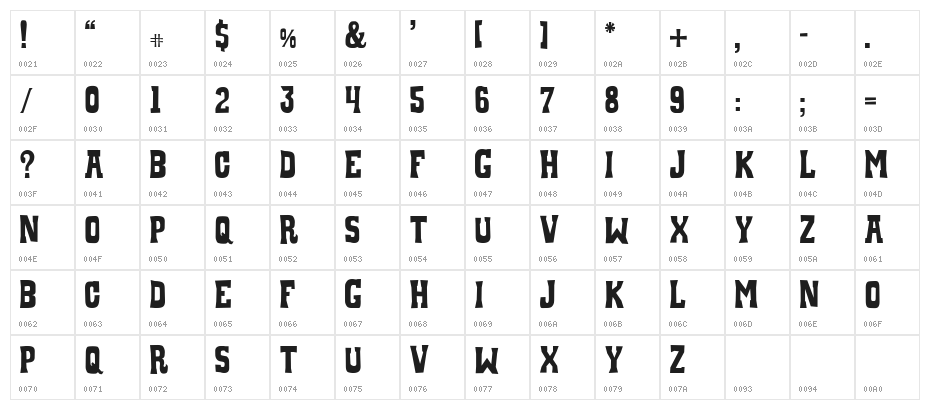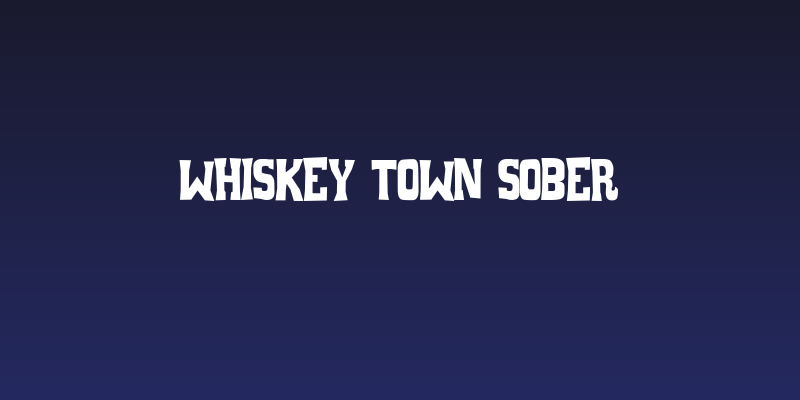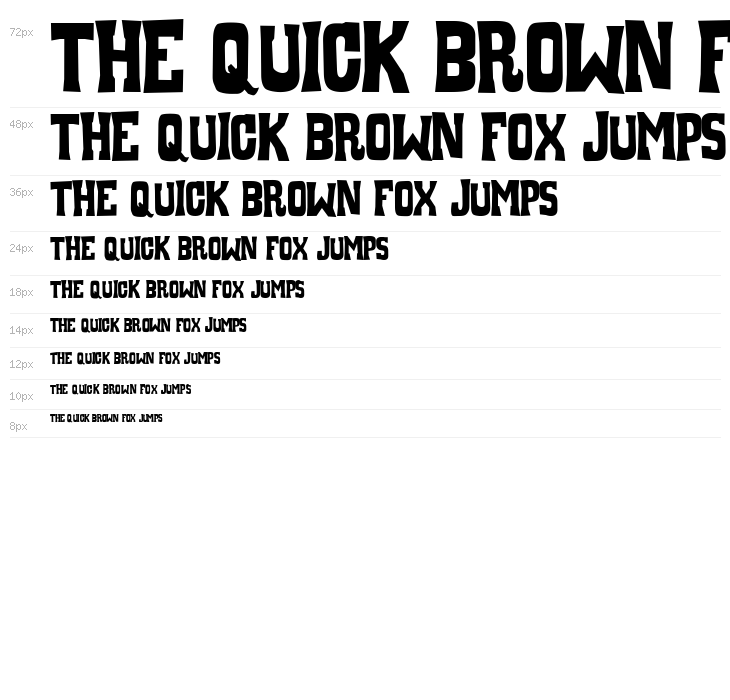
Whiskey Town Sober Font
Whiskey Town Sober Description
This font features a bold, rugged style with a strong presence, reminiscent of vintage western aesthetics. The characters are blocky and robust, with slightly irregular edges that add a handcrafted feel. The uppercase letters are particularly striking, with a wide stance and pronounced serifs that give them a commanding appearance. The numerals and special characters maintain this boldness, ensuring consistency across all glyphs. This font is ideal for projects that require a touch of nostalgia or a rustic, adventurous vibe.
| Proposed Projects | Perfect for branding, posters, signage, and any design needing a vintage or western theme. |